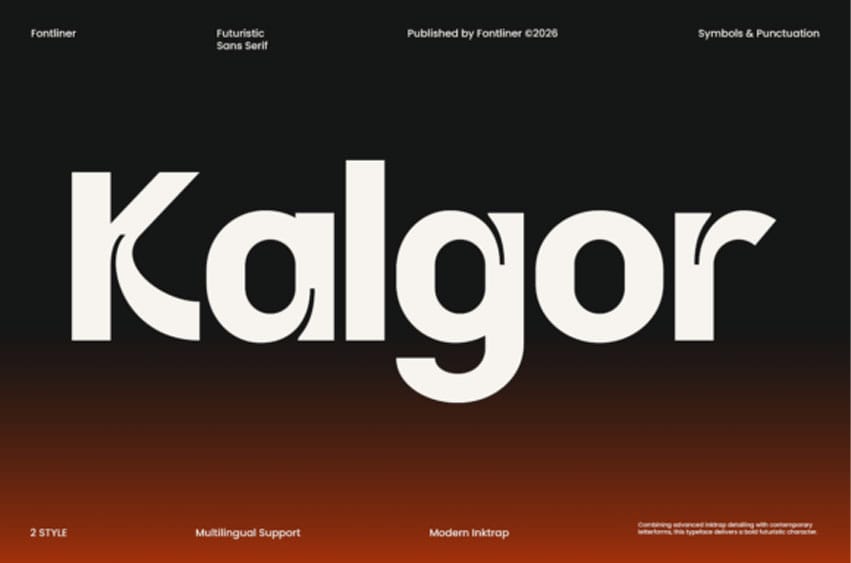
Kalgor Font is a futuristic sans serif typeface designed to capture the spirit of advanced technology, artificial intelligence, and next-generation digital design. The carefully crafted letterforms make it ideal for AI branding, technology startups, gaming interfaces, cyberpunk visuals, sci-fi posters, digital products, esports identities, and cutting-edge editorial layouts.
Kalgor perfect for futuristic logos, bold headlines, product packaging, website hero sections, motion graphics, or visionary brand systems, Kalgor provides the visual impact needed to stand out in an increasingly digital world. With its striking inktrap-inspired details and futuristic structure, Kalgor transforms every word into a statement of innovation and progress.